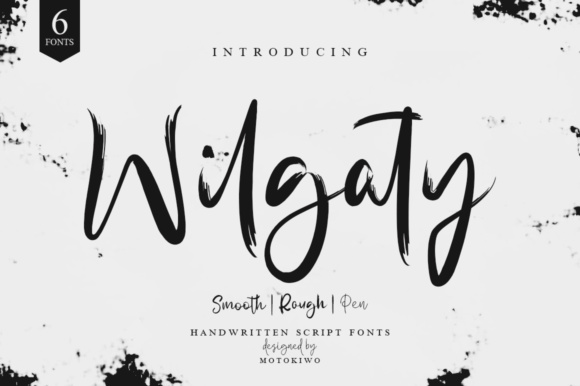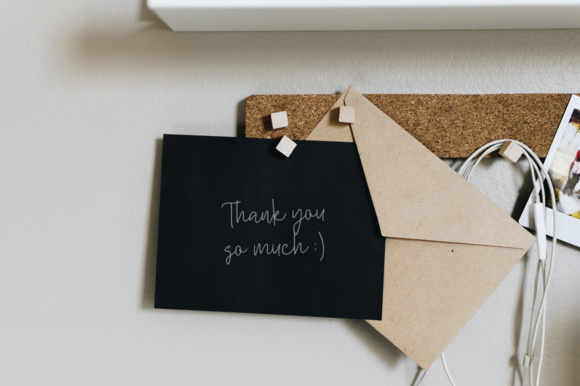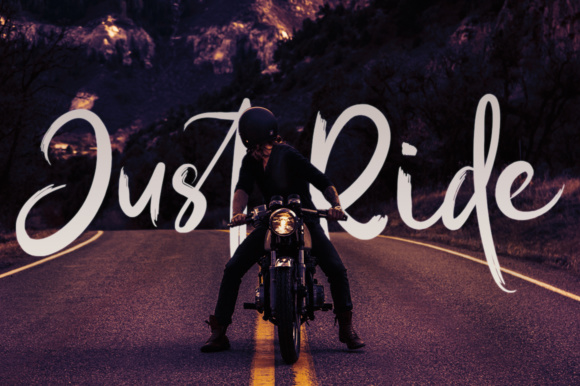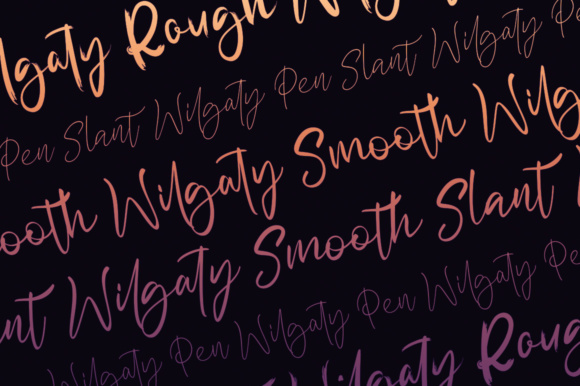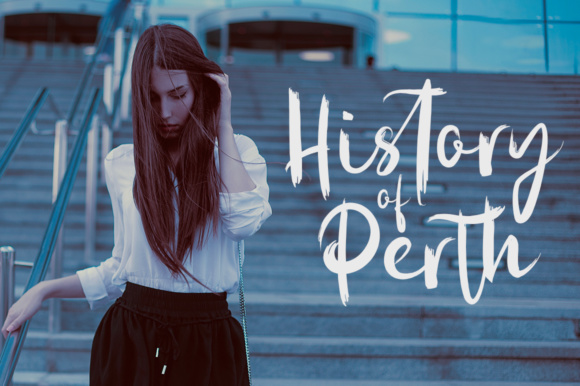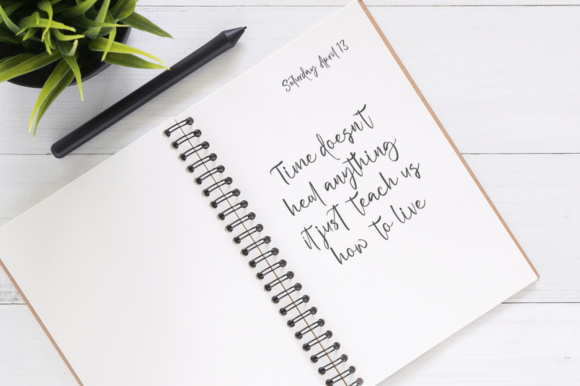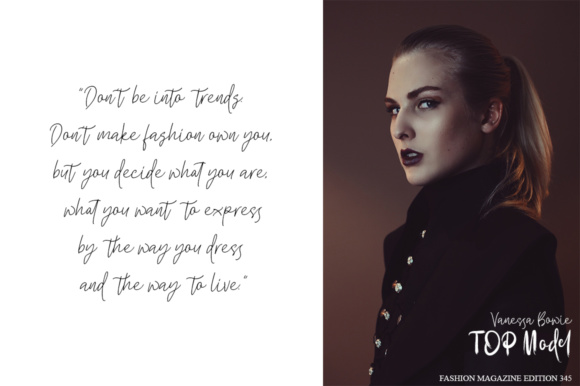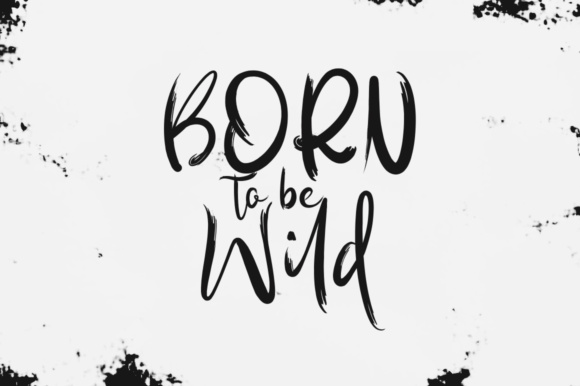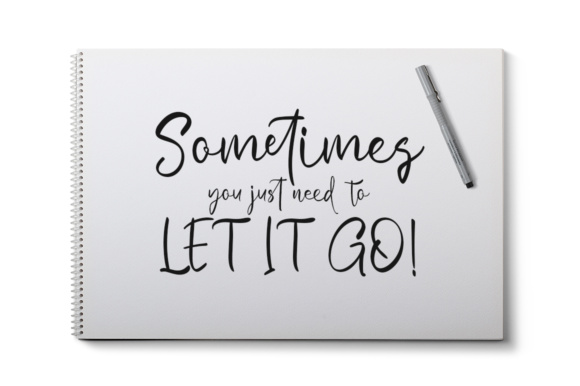
Wilgaty Font
About Wilgaty Font
Wilgaty is a gorgeous, splattery handwritten script font that adds a ton of character and casualness to your designs. This is a great font choice for use in any project that needs a relaxed yet stylish typographic appeal.